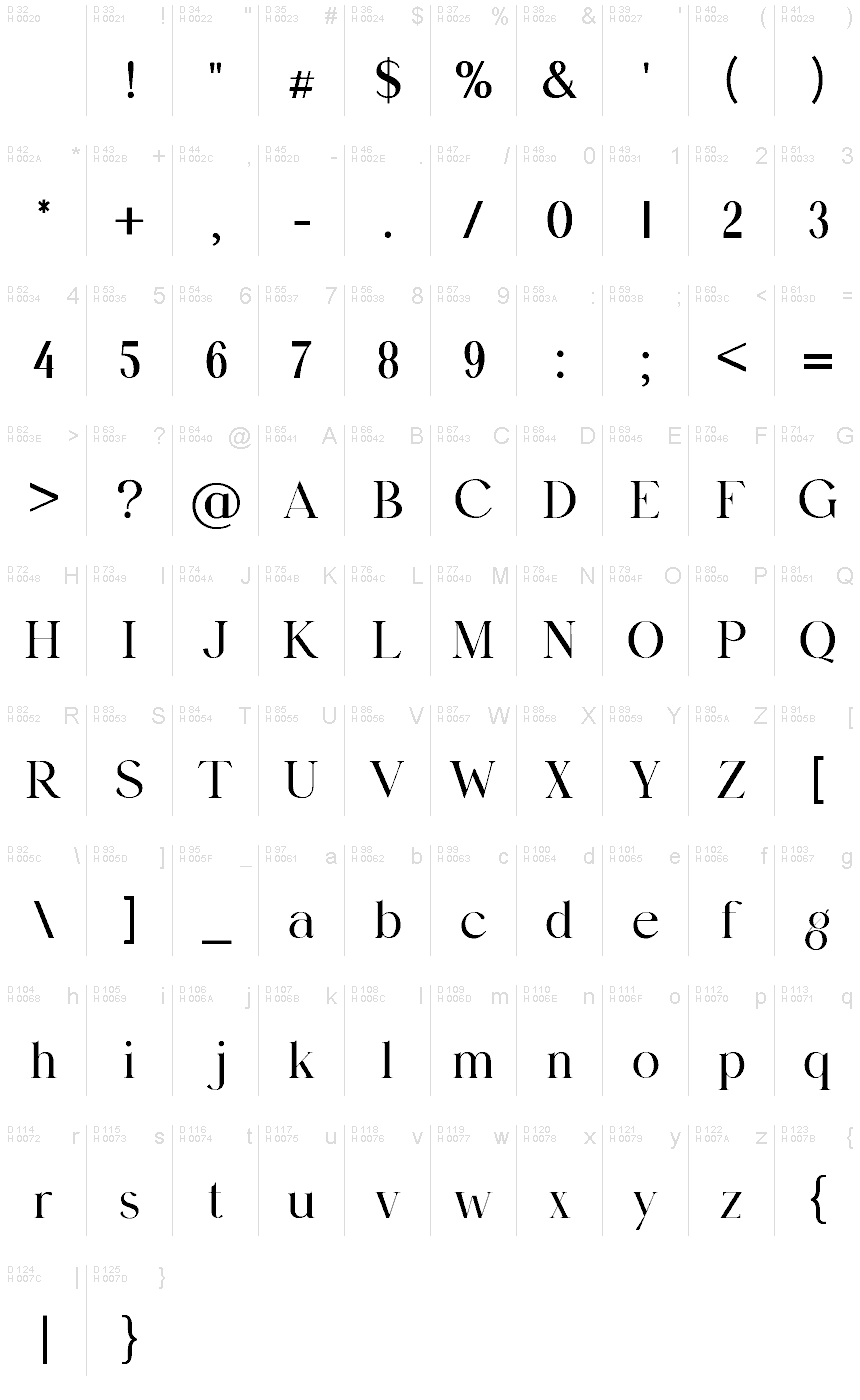
Undergrow Regular
Undergrow font by UI Creative is a modern, elegant, and minimalist serif font. Its sophisticated and contemporary style makes it perfect for fashion branding or any project that needs a refined touch.